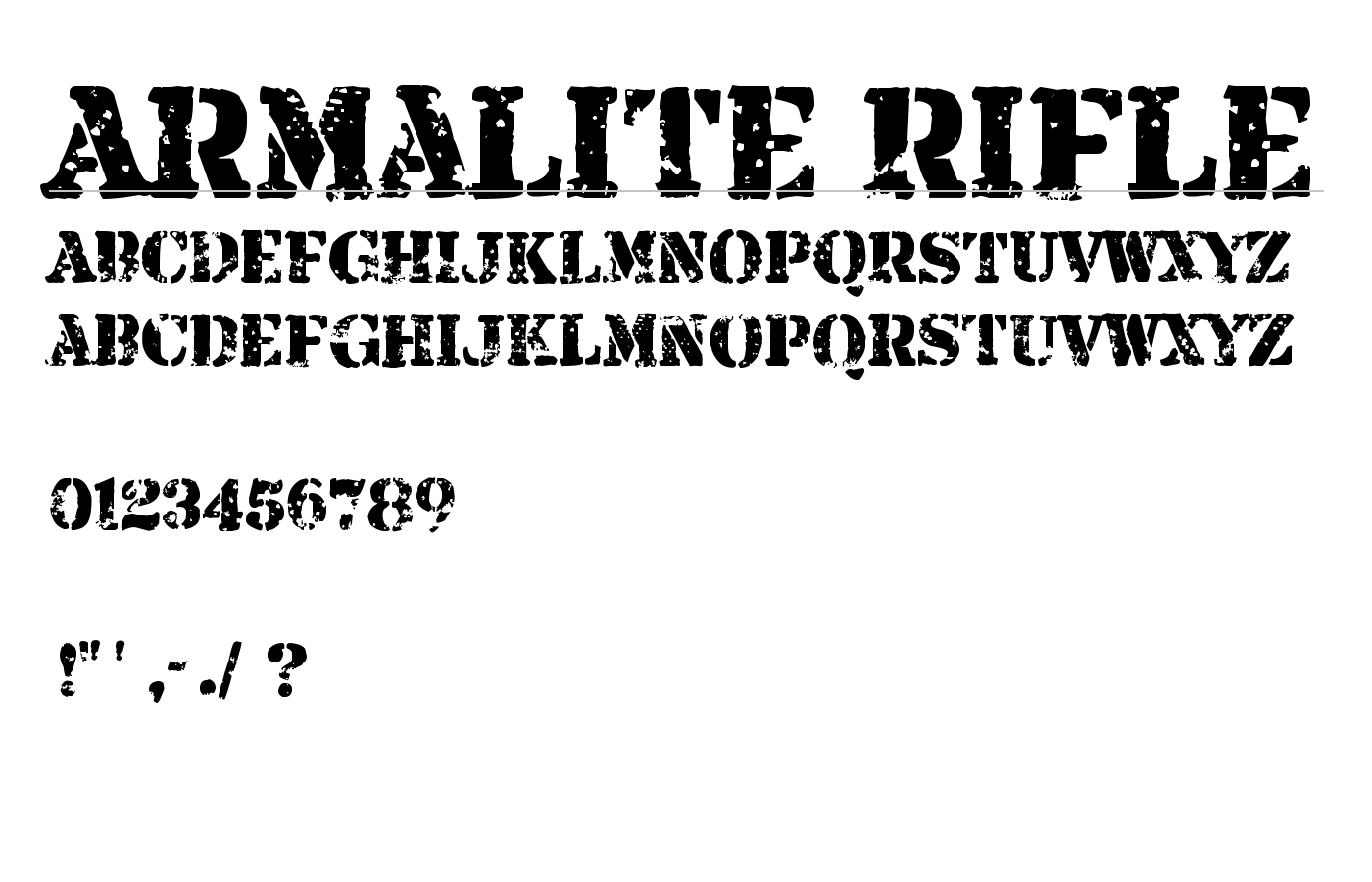
Armalite Rifle is a bold, stencil-style serif font with a rugged, distressed texture that gives it a strong, military-inspired character. Its high contrast between thick and thin strokes, combined with rough edges and uneven wear, creates an industrial and gritty feel perfect for designs that need an authoritative yet vintage touch. This font works well for logos, posters, and packaging where a tough, durable look is desired.
Armalite Rifle Font